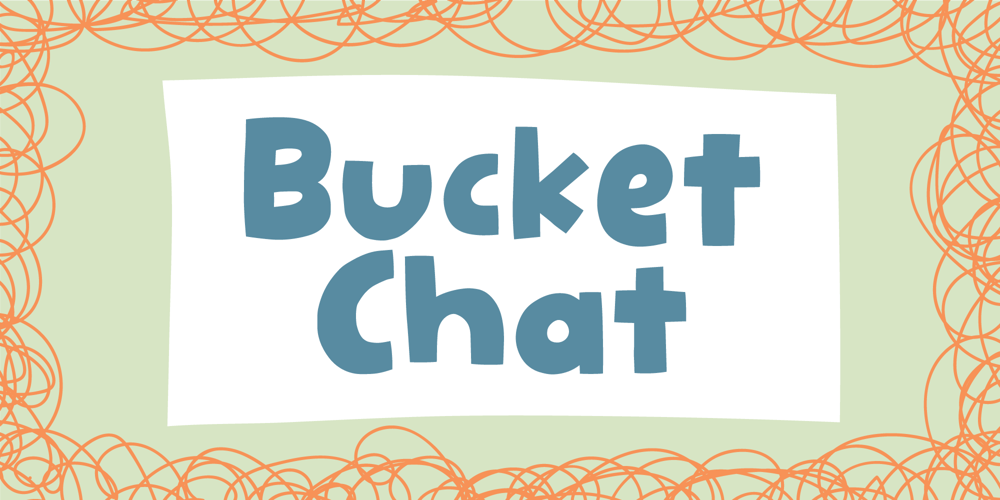
Bucket Chat Font Family was designed by Jakob Fischer and published by PizzaDude.dk. Bucket Chat contains 2 styles and family package options. The other day I misheard someone talking about a bucket hat – I heard it as “Bucket Chat” and was instantly curious about exactly what that was .. Of course I found out that there is no such thing, but it sounded so nice and goofy, that I knew that I would name a font that. When creating this nice and slightly goofy font, I found the name perfect!I added 5 different versions of each lowercase letter, as well as multilingual support!